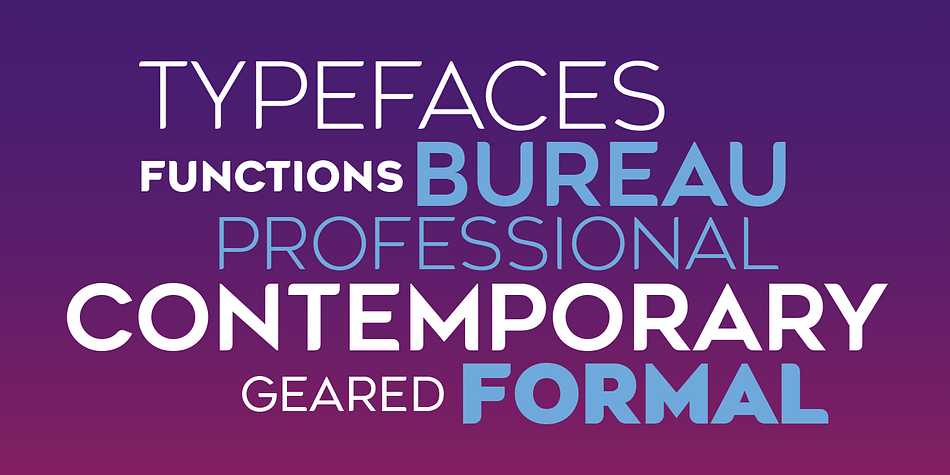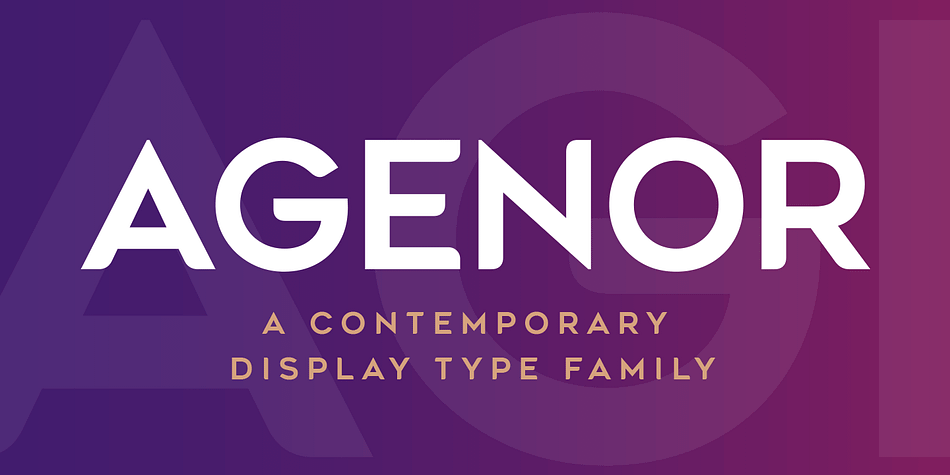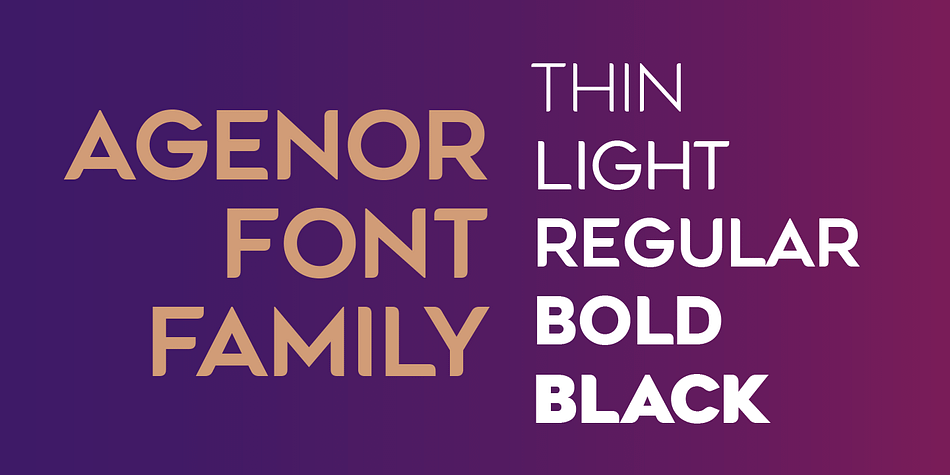
AGENOR
Designed by Deepak Dogra, Agenor is a display sans font family. This typeface has five styles and was published by Graphite.
Agenor is an all caps display typeface family. It comes in five weights and is suitable for headlines, headings, branding, posters, packaging, titles and logos.